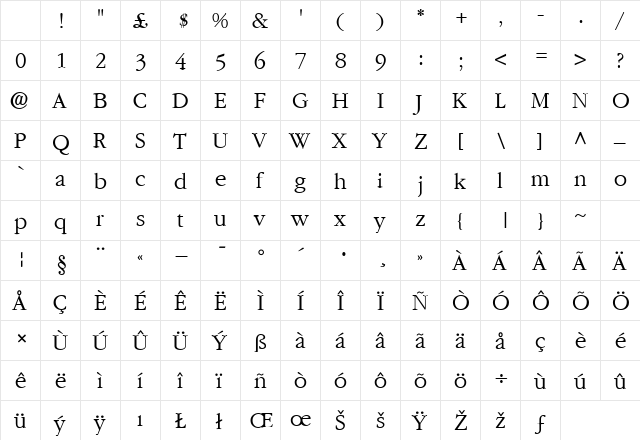
Skt Garland Regular
Designer: Diacritical marks added by Bhikkhu Pesala.
Design Context for Skt Garland
Skt Garland is a composed and adaptable typeface that performs quietly and consistently across a wide range of design contexts.